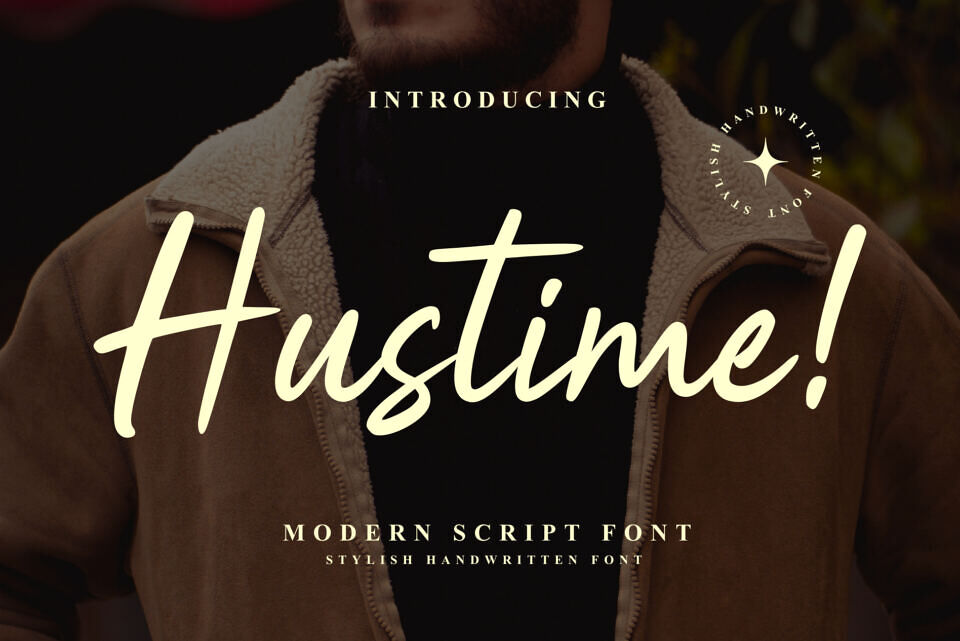
Hustime is a modern script font with a stylish handwritten feel, featuring fluid, brush-like strokes that blend casual elegance and dynamic energy.
Its flowing cursive letters, bold connections, and natural variations evoke authentic hand lettering, ideal for branding, quotes, logos, and social media graphics.